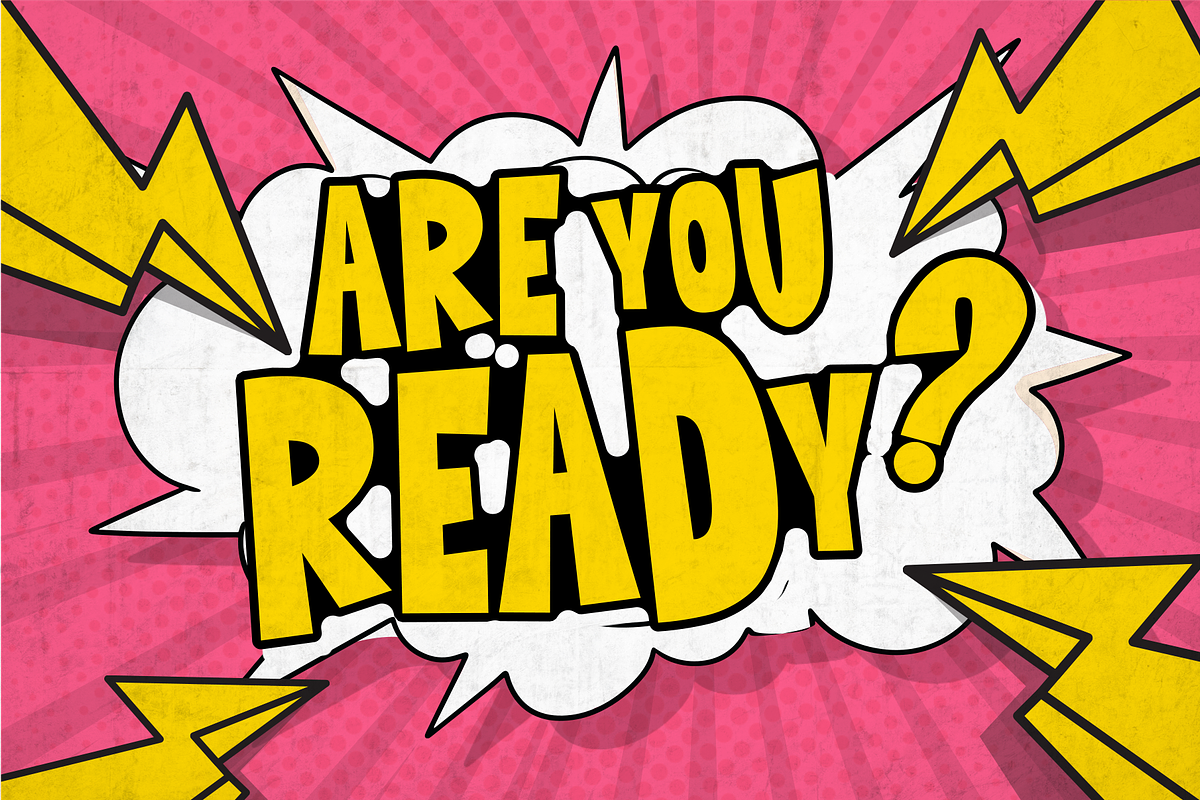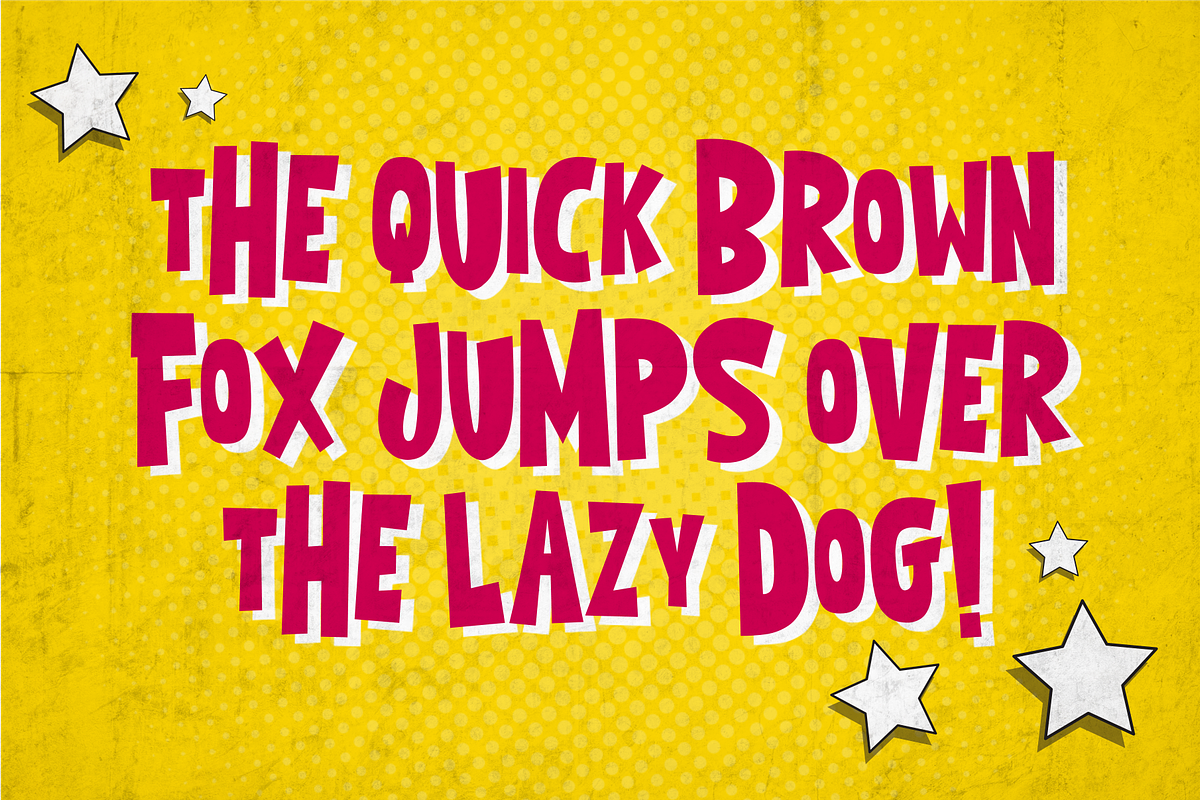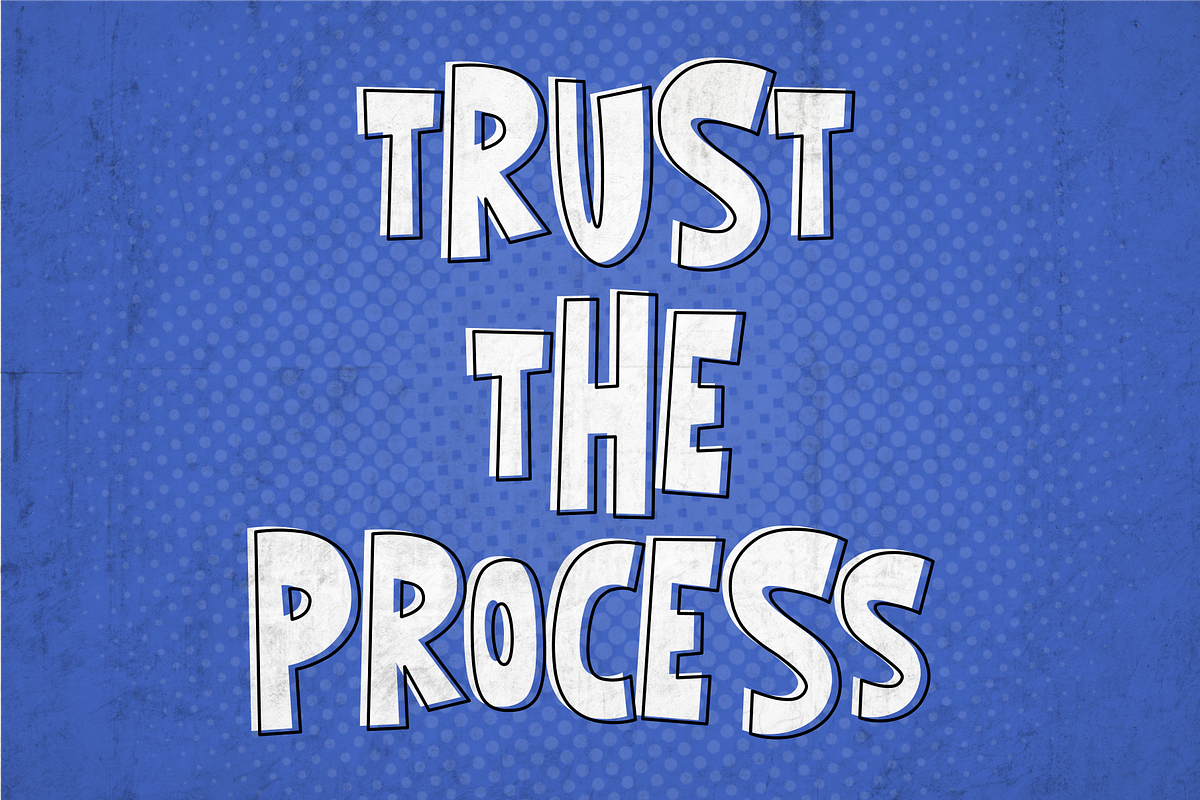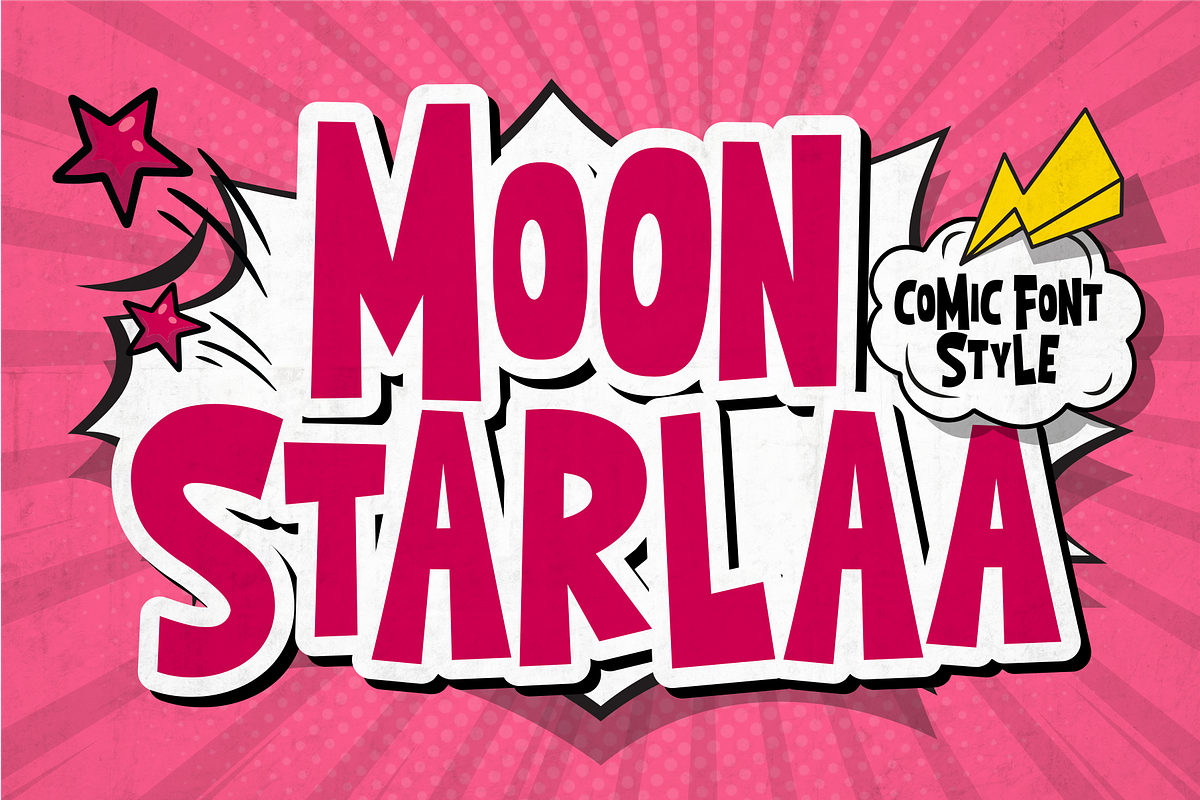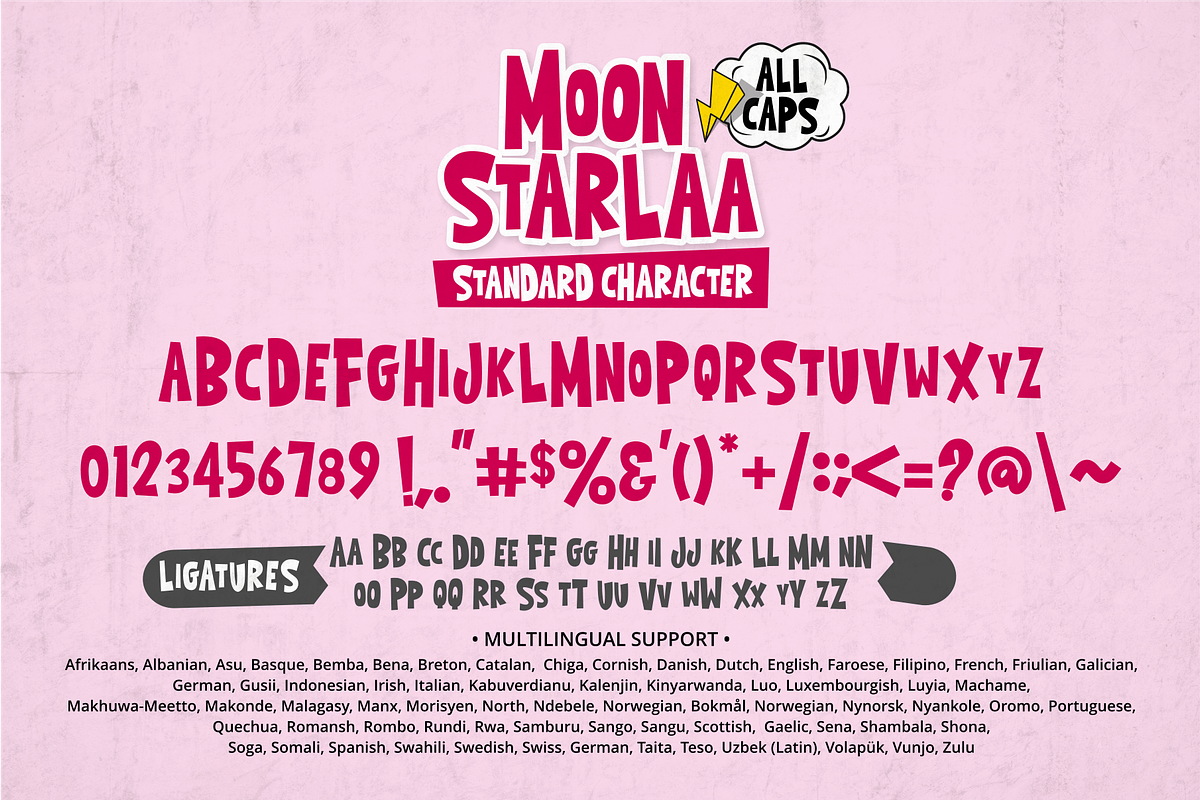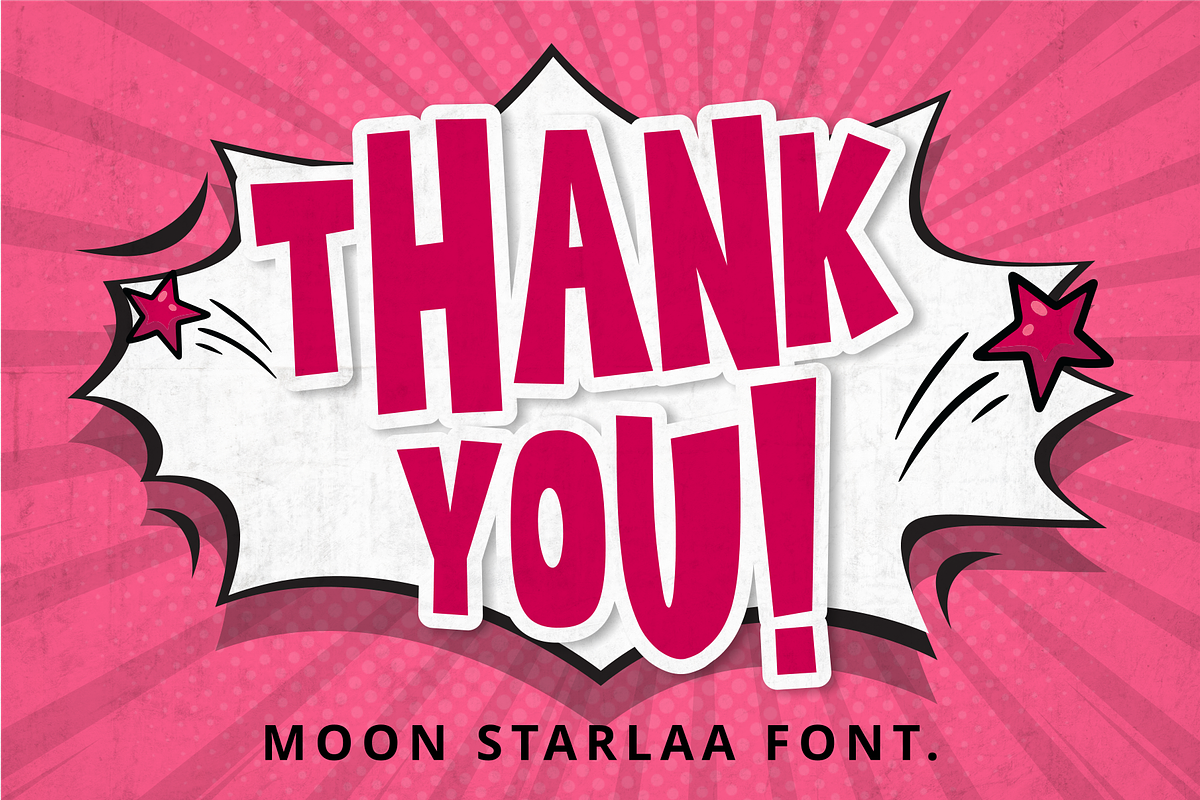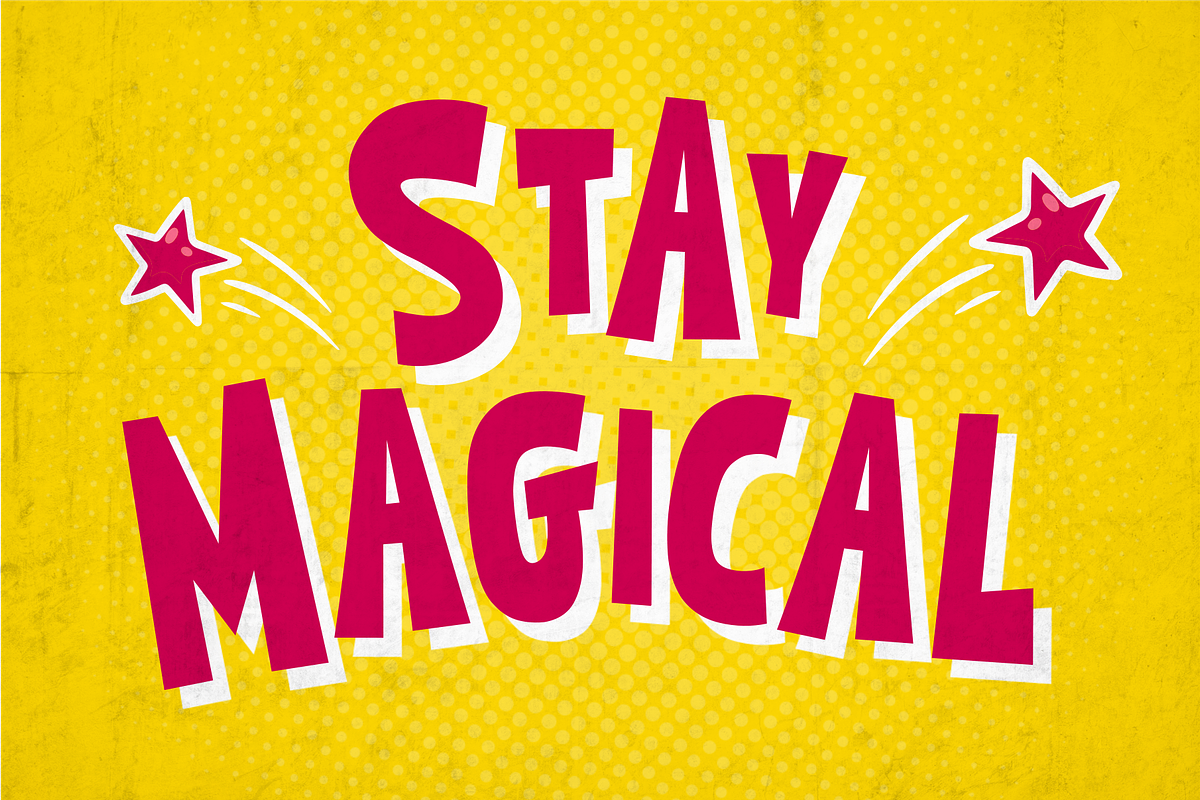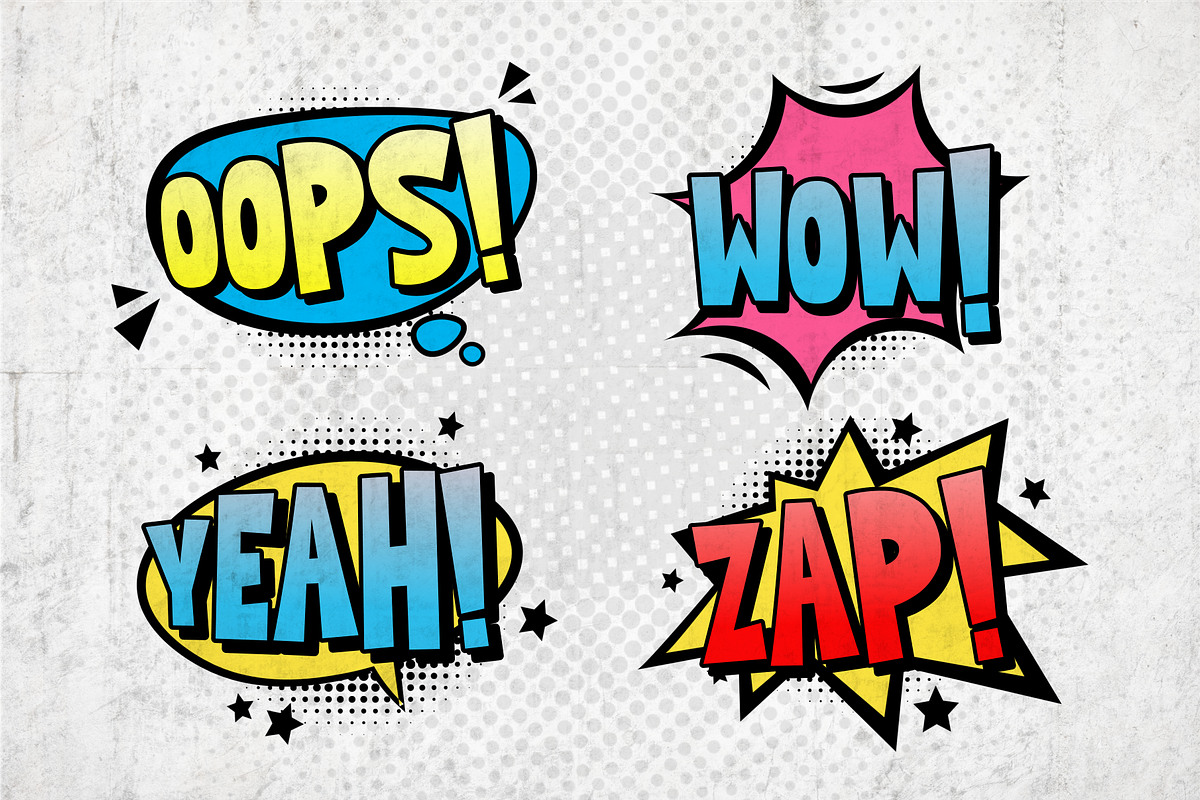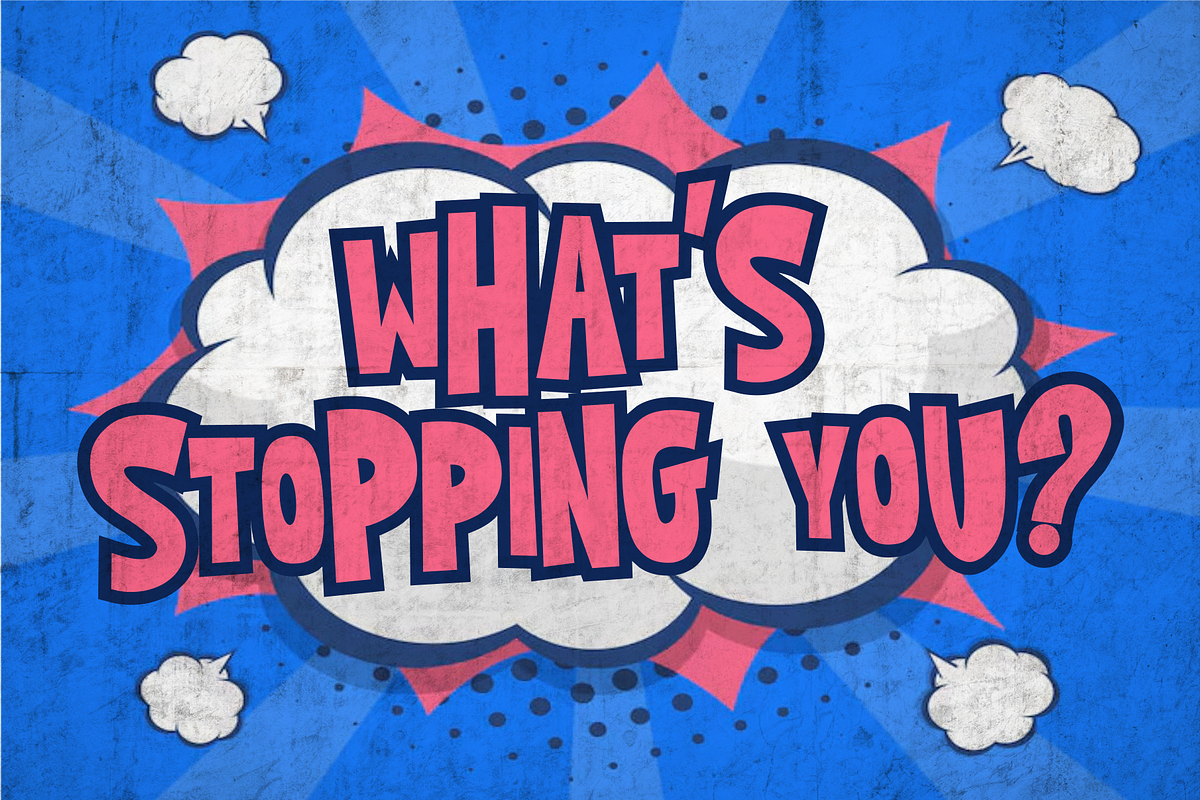
Moon Starlaa Font
Are you seeking fonts that can infuse your designs with vibrant energy and a touch of whimsy? Look no further than our collection of dynamic comic fonts! Perfect for comic books, graphic novels, posters, and more, these fonts will bring your creations to life with their playful and expressive characters.
With a variety of styles to choose from, including bold and italicized options, as well as variations in size and weight, you'll have all the tools you need to create eye-catching text that leaps off the page. Whether you're crafting dialogue for a superhero showdown or adding captions to a series of hilarious illustrations, these fonts will help you capture the essence of classic comic book storytelling.
- All Uppercase
- Punctuation & Symbols
- Support Multilingual